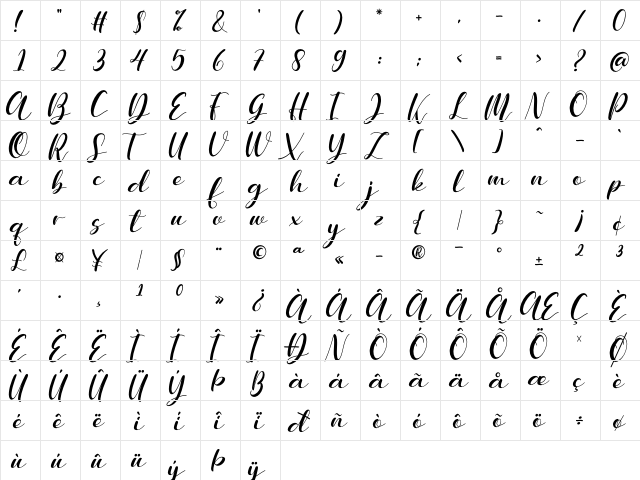
Meuthia Regular
Design Context for Meuthia Typeface
Meuthia is a composed and adaptable typeface that performs quietly and consistently across a wide range of design contexts.